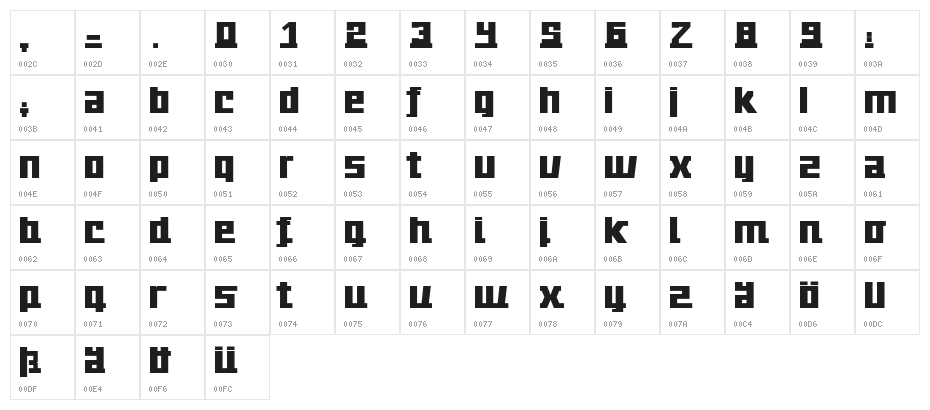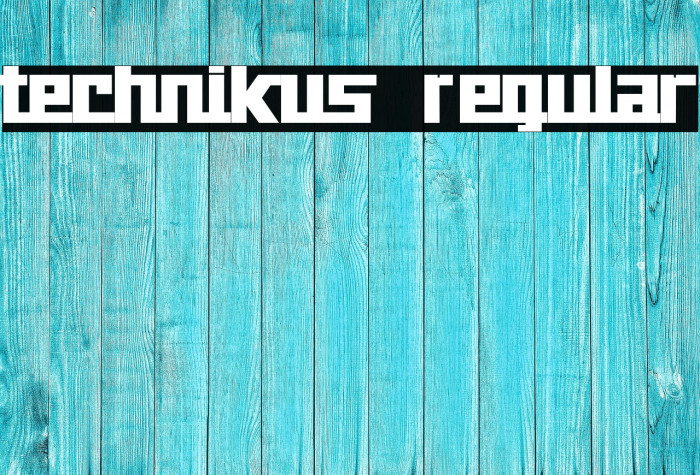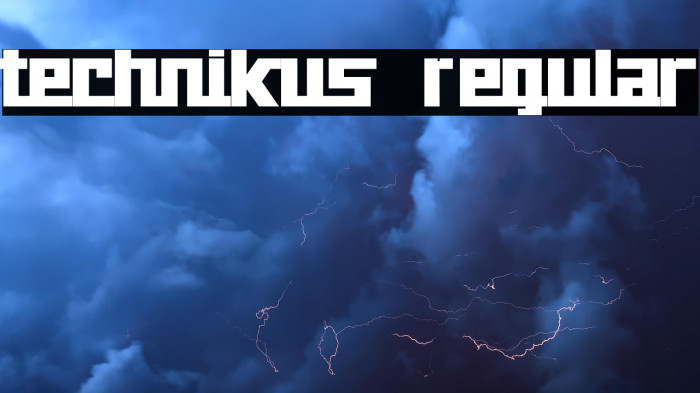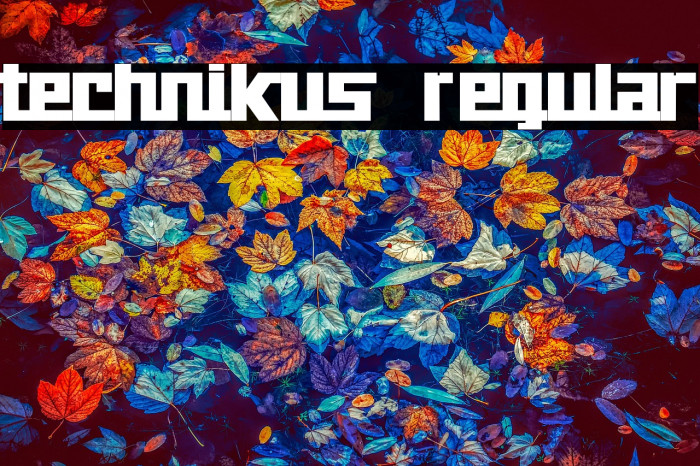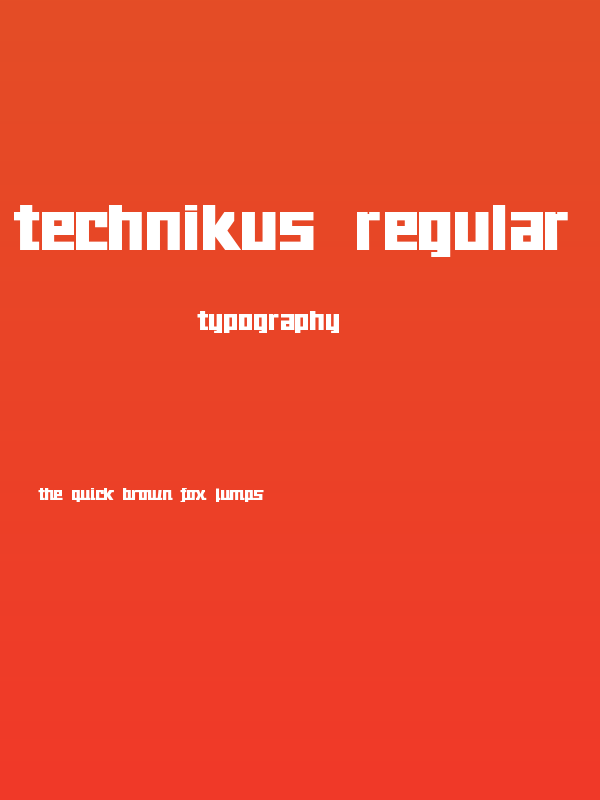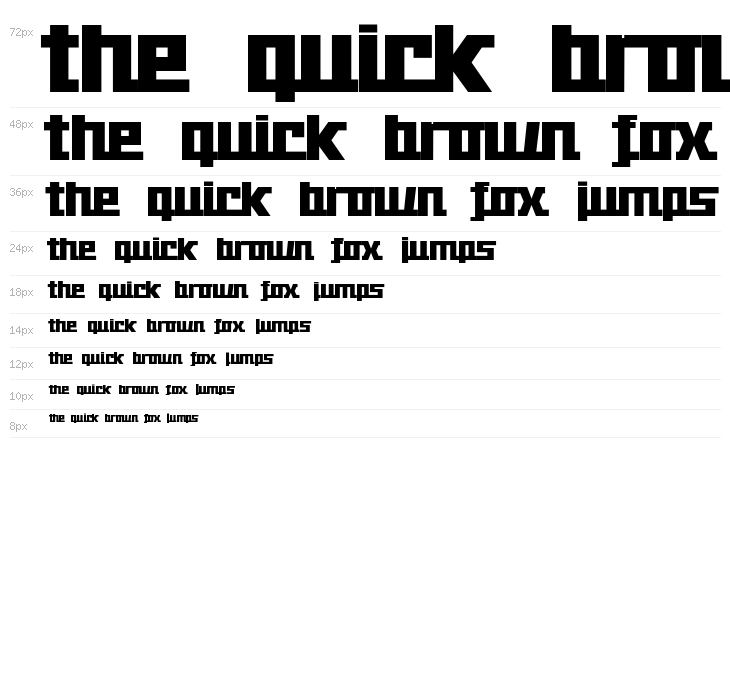
technikus Regular Font
technikus Regular Description
This font features a bold, geometric design with a distinctly modern and industrial feel. The characters are constructed with sharp, angular lines and a blocky structure, giving it a strong and assertive appearance. The uppercase and lowercase letters maintain a consistent height, contributing to a uniform and cohesive look. The numerals and special characters follow the same design principles, ensuring a seamless integration across all text elements. The overall style is reminiscent of digital or technological themes, making it suitable for projects that require a futuristic or mechanical aesthetic.
| Proposed Projects | Ideal for technology branding, video game titles, posters, and digital interfaces. |